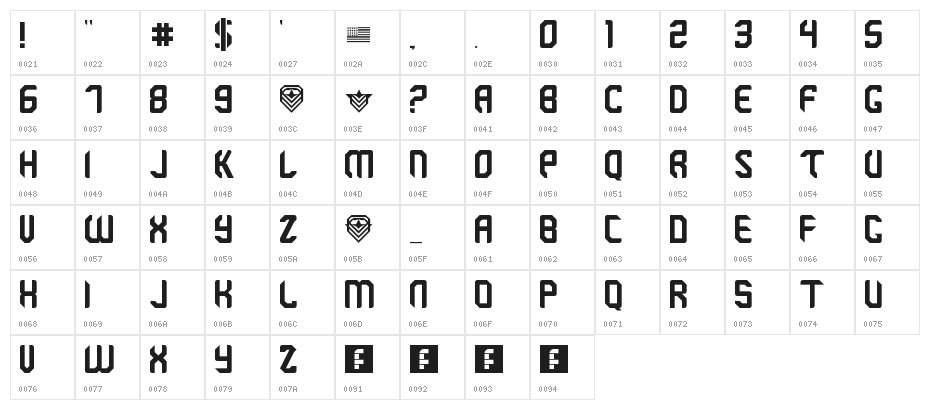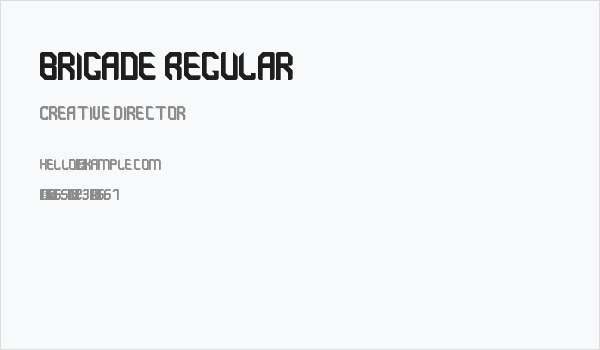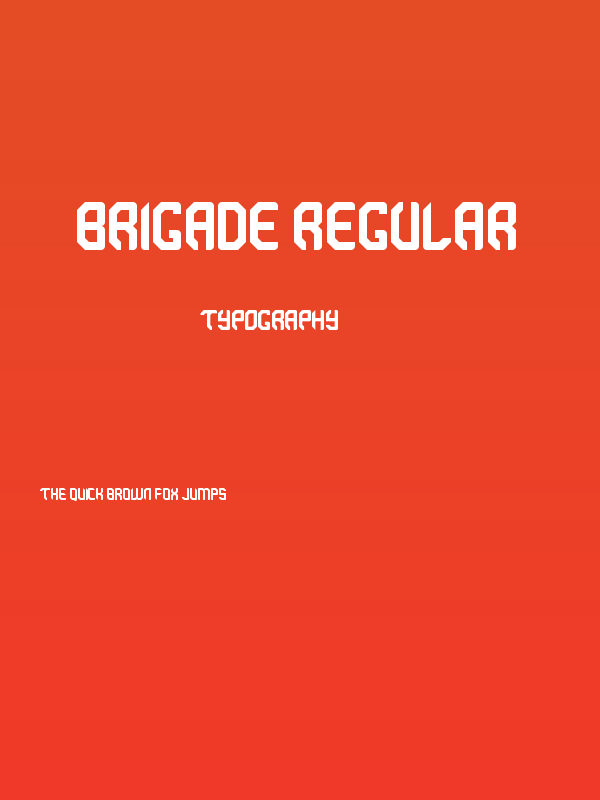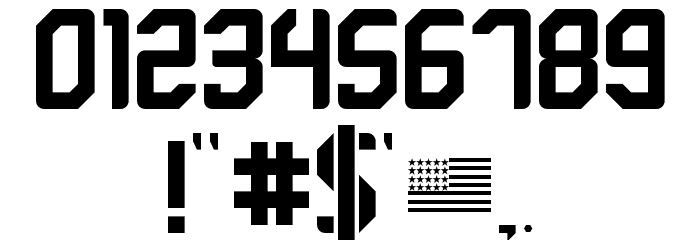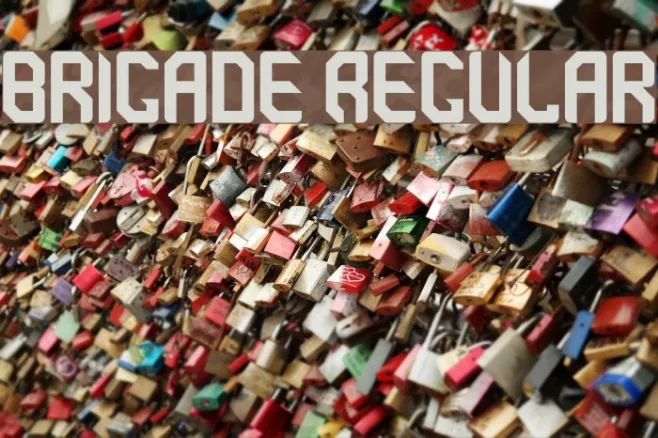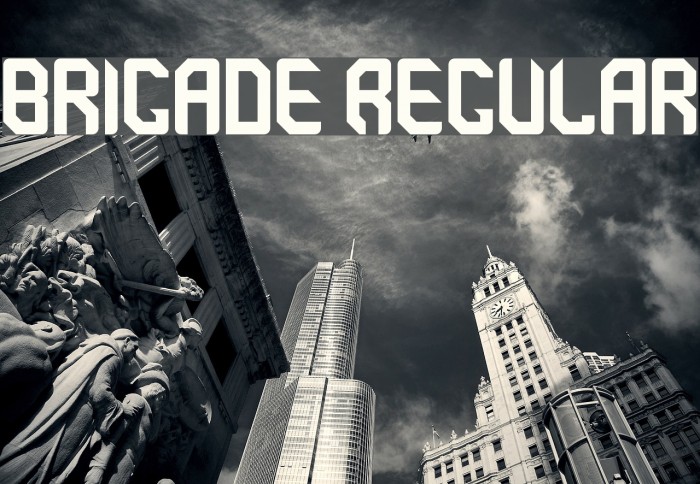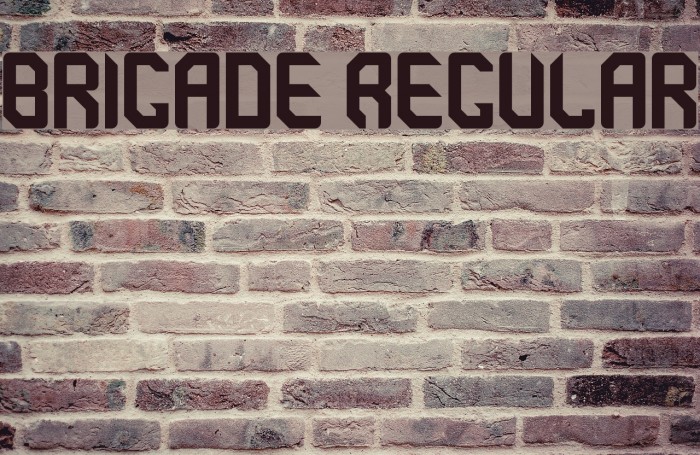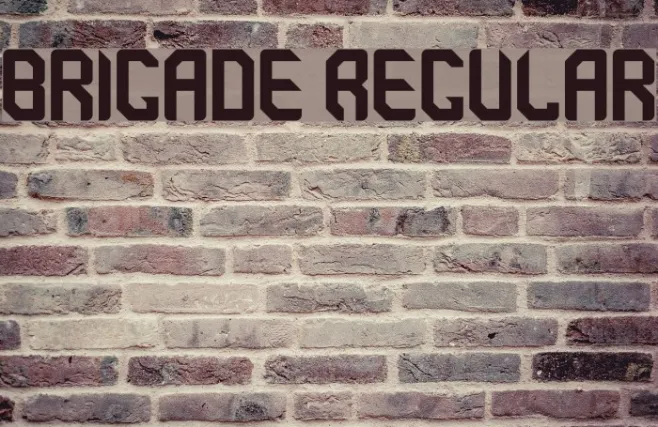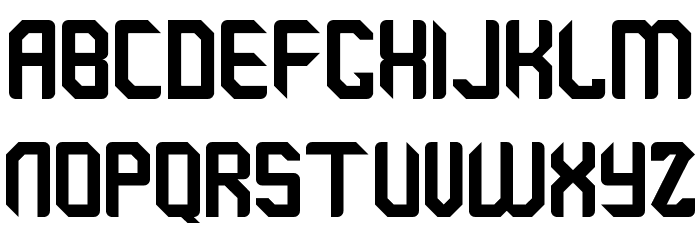
brigade Regular Font
brigade Regular Description
This font features a bold, geometric design with a modern and industrial feel. The characters are constructed with sharp angles and straight lines, giving them a strong and assertive appearance. The uppercase letters are uniform in height, while the lowercase letters maintain a consistent style, enhancing readability. The numbers are equally bold and match the overall aesthetic, making them suitable for impactful displays. Special characters are designed with the same angular style, ensuring cohesion across all elements. This font is ideal for projects that require a contemporary and robust look.
| Proposed Projects | Ideal for branding, posters, headlines, and digital interfaces that require a strong visual impact. |